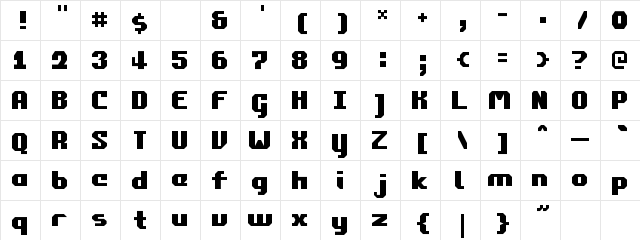
Commonwealth2 Regular
Design Context for Commonwealth2 Typeface
Commonwealth2 is a composed and adaptable typeface that performs quietly and consistently across a wide range of design contexts.